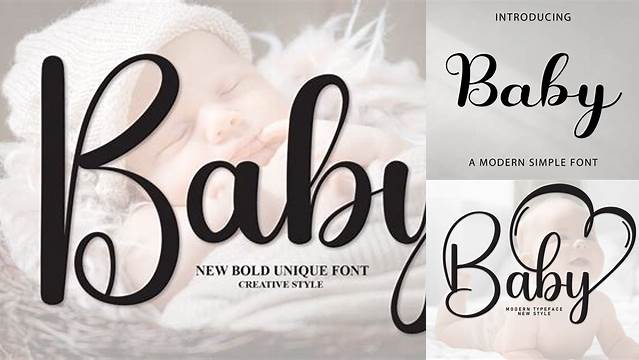
Download Free Baby Fonts: Adorable Styles For Your Projects
Introduction to Baby Fonts
Hey guys! Are you on the hunt for the perfect baby font free download? Well, you've landed in the right place! When you're creating anything related to babies – whether it's invitations for a baby shower, a birth announcement, a nursery decoration, or a scrapbook page – the font you choose can make all the difference. Baby fonts have this unique ability to evoke feelings of warmth, tenderness, and playfulness. They come in a variety of styles, from cute and whimsical to elegant and sophisticated, but the key is that they all share that gentle, joyful vibe that perfectly complements the subject matter. In this article, we'll dive deep into the world of baby fonts, exploring where you can find them, what makes them special, and how to choose the best one for your project. We’ll also talk about the different styles available and give you some tips on using them effectively. Think about it: a beautiful, well-chosen font can really elevate your design and make it stand out. So, let's get started and explore the wonderful world of baby font free download options! We'll cover everything from the basics to the more nuanced aspects of font selection, ensuring you have all the information you need to make the best choice for your adorable projects.
Types of Baby Fonts: An Overview
When it comes to baby font free download options, you'll find a delightful array of styles, each with its unique charm and personality. Understanding the different types of fonts available can help you make the best choice for your specific project. Generally, baby fonts fall into a few main categories: script fonts, sans-serif fonts, and display fonts. Script fonts, with their flowing and handwritten appearance, often evoke a sense of elegance and tenderness. They are perfect for invitations and announcements where you want a touch of sophistication. Sans-serif fonts, on the other hand, are clean and modern, making them highly readable and versatile. These fonts work well for both headings and body text, especially in digital designs. Serif fonts have small decorative strokes at the ends of the letters, giving them a classic and traditional feel. They can be an excellent choice for projects that aim for a timeless aesthetic. Finally, display fonts are the most playful and unique. They come in various shapes and styles, from bubble letters to whimsical doodles, and are perfect for adding a fun and eye-catching element to your design. Within each of these categories, there are countless variations. You might find a script font that is delicate and airy, or one that is bold and assertive. Similarly, sans-serif fonts can range from minimalist and geometric to rounded and friendly. The key is to consider the overall tone and message you want to convey. A playful display font might be perfect for a baby shower invitation, while a clean sans-serif font could be ideal for a baby product label. Exploring these different font types will not only help you find the perfect baby font free download, but also enhance your understanding of typography in general, making your design choices even more impactful.
Script Fonts for Baby-Related Projects
Script fonts are a fantastic choice when you're looking for a baby font free download that exudes elegance and a personal touch. These fonts mimic the fluidity of handwriting, which makes them especially suitable for projects where you want to convey warmth and sophistication. Think about baby shower invitations, birth announcements, or even nursery decor – a beautiful script font can add a touch of class and charm to these items. Script fonts come in a wide range of styles, from delicate and flowing to bold and dramatic. Some script fonts have elaborate flourishes and swirls, while others are more simple and understated. When choosing a script font for your baby-related project, consider the overall aesthetic you're aiming for. A more formal script might be perfect for a traditional invitation, while a playful script could be ideal for a scrapbook page or a banner. One important thing to keep in mind when using script fonts is readability. Because of their intricate designs, script fonts can sometimes be challenging to read, especially in smaller sizes. It's generally best to use script fonts for headings and titles rather than body text. Pairing a script font with a simpler sans-serif font for the body text can create a balanced and visually appealing design. Another tip is to consider the spacing between letters and words. Adjusting the kerning and tracking can make a significant difference in the readability and overall appearance of the font. By carefully selecting and using script fonts, you can add a touch of elegance and personality to your baby-related projects. Finding the perfect baby font free download in a script style can be a delightful experience, opening up a world of creative possibilities for your designs.
Sans-Serif Fonts: Clean and Modern Options
If you're seeking a baby font free download that offers a clean, modern look, sans-serif fonts are an excellent choice. These fonts are characterized by their lack of serifs – the small decorative strokes at the ends of letters – which gives them a minimalist and contemporary feel. Sans-serif fonts are incredibly versatile and work well in a variety of contexts, from digital designs to print materials. They are particularly effective for body text due to their high readability, but they can also be used for headings and titles, depending on the specific style. One of the great things about sans-serif fonts is their ability to convey a sense of clarity and simplicity. This makes them a popular choice for baby product labels, websites, and other applications where readability is paramount. When selecting a sans-serif font for your baby-related project, consider the overall tone you want to create. Some sans-serif fonts are geometric and sharp, while others are rounded and friendly. A rounded sans-serif font can be a fantastic option for baby-themed designs, as it adds a touch of softness and playfulness. For instance, fonts like Open Sans, Montserrat, and Lato are widely used for their clean lines and readability, making them suitable for both digital and print applications. When using sans-serif fonts, pay attention to the weight and size of the font. A bold sans-serif font can make a strong statement, while a lighter weight can create a more delicate look. Pairing a bold sans-serif font for headings with a lighter weight for body text can create a visually appealing hierarchy. In summary, exploring baby font free download options in the sans-serif category offers a plethora of choices for creating clean, modern designs. Their versatility and readability make them a staple in any designer's toolkit, especially when working on baby-related projects.
Serif Fonts: Classic and Timeless Choices
For a baby font free download that exudes a classic and timeless charm, serif fonts are an exceptional choice. These fonts, distinguished by the small decorative strokes known as serifs at the ends of their letters, bring a touch of tradition and elegance to any design. Serif fonts are particularly well-suited for projects that aim for a sophisticated and enduring aesthetic, making them a lovely option for baby-related creations such as birth announcements, invitations, and personalized keepsakes. The presence of serifs often lends a sense of formality and refinement, making these fonts ideal for occasions that call for a touch of grace. Think about a beautifully crafted birth announcement using a serif font like Times New Roman or Garamond – the elegance is immediately apparent. When choosing a serif font for your baby-related project, consider the overall mood you wish to evoke. Some serif fonts have a more traditional and formal appearance, while others possess a slightly softer and more playful quality. Fonts like Playfair Display and Merriweather offer a blend of classic and contemporary styles, making them versatile choices for various baby-themed designs. One of the key advantages of serif fonts is their readability, particularly in printed materials. The serifs guide the eye across the text, enhancing the reading experience. This makes serif fonts a great option for longer blocks of text, such as in a baby book or a heartfelt letter. However, it's important to note that serif fonts can sometimes appear less crisp on screens compared to sans-serif fonts, so consider the medium in which your design will be viewed. Exploring baby font free download options in the serif category opens up a world of classic and timeless designs. Their inherent elegance and readability make them a perfect choice for projects that aim to capture the enduring beauty of early childhood.
Display Fonts: Playful and Unique Options
When you're on the hunt for a baby font free download that's bursting with personality and playfulness, display fonts are the way to go. These fonts are designed to be eye-catching and unique, perfect for adding a fun and whimsical touch to your baby-related projects. Display fonts come in a vast array of styles, from bubbly and cartoonish to hand-drawn and quirky, making them ideal for creating designs that stand out. Think about invitations, posters, nursery decorations, or any project where you want to inject a bit of fun and creativity. Display fonts are all about making a statement and capturing attention. Unlike serif or sans-serif fonts, which prioritize readability in longer texts, display fonts are meant to be used sparingly, typically for headings, titles, or short phrases. Their primary goal is to evoke a certain mood or feeling, and they excel at doing just that. For baby-themed projects, you might consider fonts with rounded edges, playful shapes, or even those that mimic the look of children's handwriting. Fonts like Bubblegum Sans, Chewy, and KG Primary Penmanship are excellent examples of display fonts that capture the essence of childhood. When using display fonts, it's crucial to balance their visual impact with readability. Avoid using them for large blocks of text, as they can become overwhelming. Instead, pair them with a simpler serif or sans-serif font for the body text to ensure your message remains clear. Another tip is to consider the color and size of the font. Bright colors and larger sizes can enhance the playful effect, while softer colors and smaller sizes can create a more subtle and charming look. In essence, diving into the world of baby font free download in the display category is like opening a treasure chest of creativity. These fonts allow you to express your imagination and add a unique flair to your baby-related designs.
Choosing the Right Font for Your Project
Selecting the right baby font free download for your project is a crucial step in ensuring that your design effectively communicates your message and captures the desired mood. With so many font options available, it can feel a bit overwhelming, but breaking the process down into a few key considerations can make it much more manageable. First and foremost, think about the overall tone and style of your project. Are you aiming for a classic and elegant feel, or something more playful and whimsical? A formal invitation might call for a script or serif font, while a birthday banner could benefit from a fun and quirky display font. The context of your project is also essential. A font that looks great on a computer screen might not translate well to print, and vice versa. Consider the medium in which your design will be viewed, and choose a font that is legible and visually appealing in that context. Readability is another critical factor, especially if your design includes body text. While a decorative font might be perfect for a heading, it could be challenging to read in longer paragraphs. Pairing a decorative font with a simpler sans-serif or serif font for the body text can strike a good balance. Don't be afraid to experiment with different font combinations to see what works best. Another aspect to consider is the font's personality. Does the font convey the emotions and messages you want to communicate? A soft, rounded font might be ideal for a baby-related project, while a sharp, geometric font might feel too sterile. Finally, always check the licensing agreement for any baby font free download you choose. Some fonts are free for personal use only, while others can be used for commercial projects. Ensuring you have the appropriate license will help you avoid any potential legal issues down the road. By carefully considering these factors, you can confidently select the perfect font that will enhance your design and bring your vision to life.
Font Pairing Tips for Baby Designs
When working on baby designs, finding the perfect baby font free download is just the first step. To truly elevate your project, you'll want to master the art of font pairing. Font pairing involves selecting two or more fonts that complement each other visually and functionally, creating a harmonious and balanced design. A well-executed font pairing can significantly enhance the readability and aesthetic appeal of your project. One of the most fundamental tips for font pairing is to combine fonts from different font families. For instance, pairing a script font with a sans-serif font is a classic combination that works well in many baby-related designs. The script font can add a touch of elegance and personality, while the sans-serif font provides clarity and readability for body text. Another approach is to pair a bold font with a lighter font. This creates visual contrast and hierarchy, making your design more engaging. For example, you might use a bold display font for headings and a lighter sans-serif font for body text. This helps to draw the reader's eye to the key elements of your design while ensuring that the overall text is easy to read. When choosing fonts, consider their mood and personality. Do the fonts convey similar emotions? Pairing fonts that clash in style can create a jarring effect, while pairing fonts that complement each other can create a cohesive and pleasing design. For baby designs, you might want to choose fonts that evoke feelings of warmth, playfulness, and tenderness. Experiment with different font sizes and weights to create visual interest. Varying the font size can help to establish a hierarchy in your design, highlighting important information. Using different font weights, such as bold, regular, and light, can also add depth and dimension. In the realm of baby font free download, font pairing is a skill that can truly set your designs apart. By following these tips and experimenting with different combinations, you can create beautiful and effective designs that capture the essence of babyhood.
Best Free Baby Fonts for Invitations
Creating the perfect invitation for a baby shower, birthday party, or birth announcement starts with choosing the right font. When searching for a baby font free download specifically for invitations, you'll want to consider fonts that are both visually appealing and highly readable. Invitations often set the tone for the event, so the font you choose should reflect the overall style and theme. For a touch of elegance and sophistication, script fonts are an excellent choice. Fonts like Brush Script MT, Great Vibes, and Alex Brush offer a beautiful handwritten feel that can add a personal and charming touch to your invitations. However, it's essential to ensure that the script font is legible, especially for important details like the date, time, and location. Pairing a script font with a simpler sans-serif font for the body text can help balance elegance with readability. If you're aiming for a more modern and clean look, sans-serif fonts are a fantastic option. Fonts like Open Sans, Montserrat, and Lato are highly versatile and work well for both headings and body text. These fonts are easy to read and can be used in various sizes without losing clarity. For a playful and whimsical touch, consider using a display font for the main heading or title of your invitation. Fonts like Bubblegum Sans, Chewy, and Luckiest Guy can add a fun and festive element to your design. However, it's important to use display fonts sparingly, as they can be overwhelming if used for large blocks of text. When selecting a baby font free download for your invitations, think about the overall theme and color scheme. A soft and rounded font might be perfect for a pastel-themed baby shower, while a bold and playful font could be ideal for a brightly colored birthday party invitation. By carefully considering these factors, you can choose a font that will make your invitations stand out and create a lasting impression.
Top Free Fonts for Baby Shower Projects
Planning a baby shower involves a lot of creative elements, and one of the most important is choosing the right fonts for your decorations, invitations, and signage. If you're looking for a baby font free download to make your baby shower projects extra special, you're in luck! There are tons of adorable and versatile fonts available that can help you set the perfect tone for the celebration. For invitations and thank-you cards, script fonts can add a touch of elegance and warmth. Imagine using a beautiful, flowing script font like Allura or Pacifico to announce the upcoming arrival of the little one. These fonts have a handwritten feel that's perfect for conveying excitement and anticipation. To balance the fanciness of script fonts, pair them with a clean and readable sans-serif font like Montserrat or Lato for the details like date, time, and location. This combination ensures that your invitations look both stylish and easy to read. When it comes to decorations like banners, signs, and cupcake toppers, you might want to consider using display fonts. These fonts are designed to be eye-catching and fun, perfect for creating a festive atmosphere. Fonts like Bubbly and Chewy are great choices for adding a playful touch to your baby shower decor. They're bold and whimsical, making them ideal for grabbing attention. Another fantastic option for baby shower projects is a cute and rounded sans-serif font. Fonts like Comfortaa and Nunito are soft and friendly, creating a welcoming and cheerful vibe. These fonts work well for a variety of applications, from signs and banners to games and activities. If you're creating a more rustic or vintage-themed baby shower, you might want to explore fonts with a slightly distressed or hand-lettered look. Fonts like Amatic SC and Permanent Marker can add a charming, handcrafted feel to your projects. In your quest for the perfect baby font free download for your baby shower, remember to consider the overall theme and color scheme of your event. Choosing fonts that complement your design aesthetic will help tie everything together and create a cohesive and memorable celebration.
Cute and Free Fonts for Birth Announcements
Announcing the arrival of your little one is a special occasion, and the font you choose for your birth announcement can help convey the joy and excitement of this momentous event. When searching for a baby font free download that's perfect for birth announcements, you'll want to consider fonts that are cute, heartwarming, and easy to read. After all, you want your announcement to be both beautiful and informative. Script fonts are a classic choice for birth announcements, as they add a touch of elegance and personality. Imagine using a delicate and flowing script font like Playfair Display or Mrs Saint Delafield to showcase your baby's name. These fonts have a timeless appeal that's perfect for celebrating new life. To ensure readability, pair your script font with a clean and simple sans-serif font for the details like date, time, and weight. This combination will make your announcement both visually stunning and easy to read. If you're looking for a more modern and minimalist look, sans-serif fonts are an excellent option. Fonts like Open Sans, Raleway, and Lato are clean, versatile, and work well in a variety of designs. These fonts convey a sense of clarity and simplicity, making them ideal for announcements that are both stylish and straightforward. For a touch of playfulness and whimsy, consider using a display font for your baby's name or a short message. Fonts like Bubblegum Sans, Chewy, and Luckiest Guy can add a fun and festive element to your announcement. However, it's important to use display fonts sparingly, as they can be overwhelming if used for large blocks of text. When selecting a baby font free download for your birth announcement, think about the overall style and theme you want to convey. A soft and elegant font might be perfect for a classic announcement, while a bold and playful font could be ideal for a more modern and whimsical design. By carefully considering these factors, you can create a birth announcement that truly captures the joy and magic of welcoming your new baby into the world.
Free Fonts for Nursery Decor Projects
Creating a cozy and inviting nursery is a labor of love, and the fonts you choose for your decor projects can play a significant role in setting the right tone. Whether you're designing wall art, personalized signs, or decorative pillows, finding the perfect baby font free download can help you achieve the look and feel you desire. For a nursery with a whimsical and playful vibe, consider using display fonts that are fun and eye-catching. Fonts like KG Primary Penmanship, Janda Stylish Script, and Bubblegum Sans are excellent choices for adding a touch of childhood charm. These fonts are perfect for creating personalized name signs, inspirational quotes, and decorative banners. However, it's important to use display fonts sparingly and pair them with simpler fonts for readability. If you're aiming for a more elegant and sophisticated nursery, script fonts can add a touch of grace and sophistication. Imagine using a beautiful script font like Emily's Candy or Great Vibes to create a personalized wall decal featuring your baby's name or initials. These fonts have a timeless appeal that's perfect for creating a classic and stylish nursery. To balance the fanciness of script fonts, pair them with a clean and readable sans-serif font for any additional text. Sans-serif fonts are also a great choice for a modern and minimalist nursery. Fonts like Open Sans, Montserrat, and Lato are versatile and work well in a variety of designs. These fonts are clean, simple, and easy to read, making them ideal for creating wall art with inspirational quotes or educational elements. For a nursery with a rustic or vintage theme, you might want to explore fonts that have a hand-lettered or slightly distressed look. Fonts like Amatic SC, Permanent Marker, and Architects Daughter can add a charming, handcrafted feel to your decor projects. In your search for the perfect baby font free download for your nursery, consider the overall theme and color scheme of the room. Choosing fonts that complement your design aesthetic will help create a cohesive and inviting space for your little one.
Free Fonts for Baby Scrapbooking
Scrapbooking is a wonderful way to preserve precious memories of your baby's first years, and the fonts you choose can play a significant role in telling your story. When looking for a baby font free download for your scrapbooking projects, you'll want to consider fonts that are both cute and legible, capturing the joy and sweetness of childhood. For captions, titles, and journaling, script fonts can add a personal and heartfelt touch to your scrapbook pages. Imagine using a flowing script font like Always in My Heart or Jenna Sue to write down your thoughts and feelings about your baby's milestones. These fonts have a handwritten feel that's perfect for creating a scrapbook that's both beautiful and meaningful. To ensure readability, pair your script font with a clean and simple sans-serif font for any additional text. If you prefer a more modern and minimalist look, sans-serif fonts are an excellent choice for your baby scrapbook. Fonts like Open Sans, Raleway, and Lato are clean, versatile, and easy to read, making them ideal for captions, dates, and journaling. These fonts can help you create a scrapbook that's both stylish and timeless. For headers, titles, and decorative elements, consider using display fonts that are fun and eye-catching. Fonts like Bubblegum Sans, Chewy, and Luckiest Guy can add a playful and whimsical touch to your scrapbook pages. These fonts are perfect for highlighting important moments and adding a pop of personality to your design. When selecting a baby font free download for your scrapbooking projects, think about the overall theme and style of your scrapbook. A soft and elegant font might be perfect for a classic baby scrapbook, while a bold and playful font could be ideal for a more modern and whimsical design. Also, consider the colors and patterns you're using in your scrapbook and choose fonts that complement your overall aesthetic. By carefully selecting the right fonts, you can create a baby scrapbook that's not only a beautiful keepsake but also a cherished memento of your baby's early years.